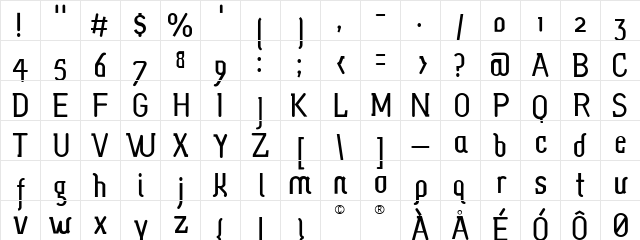
TonleSab Medium
| Foundry | Tom Tor |
| Designer | Tom Tor |
Design Context for TonleSab Typeface
TonleSab is a composed and adaptable typeface that performs quietly and consistently across a wide range of design contexts.